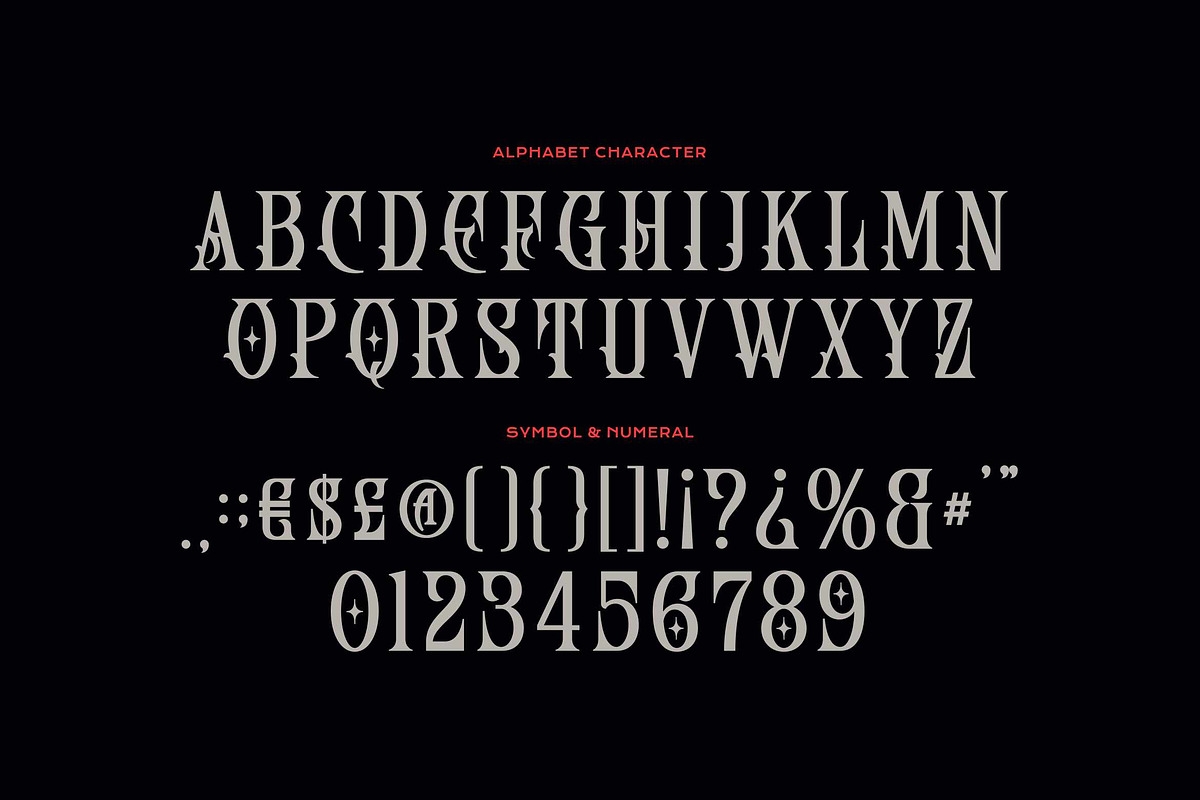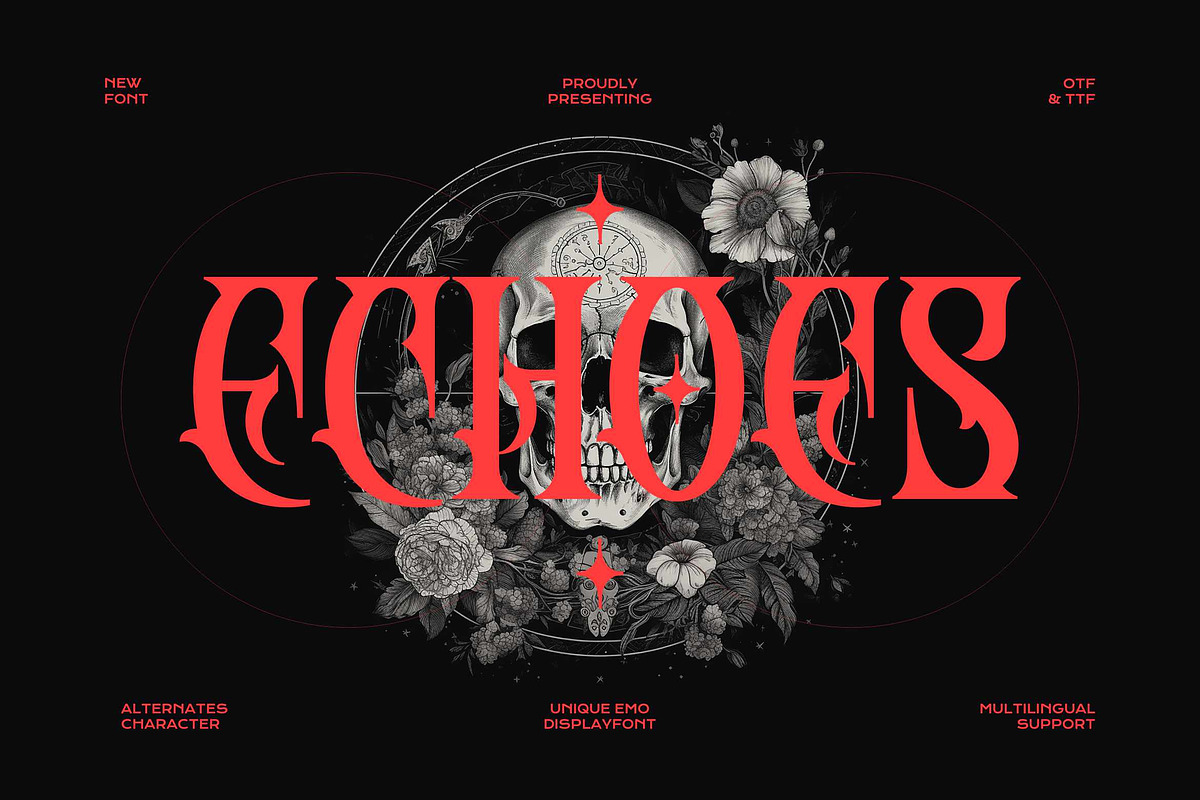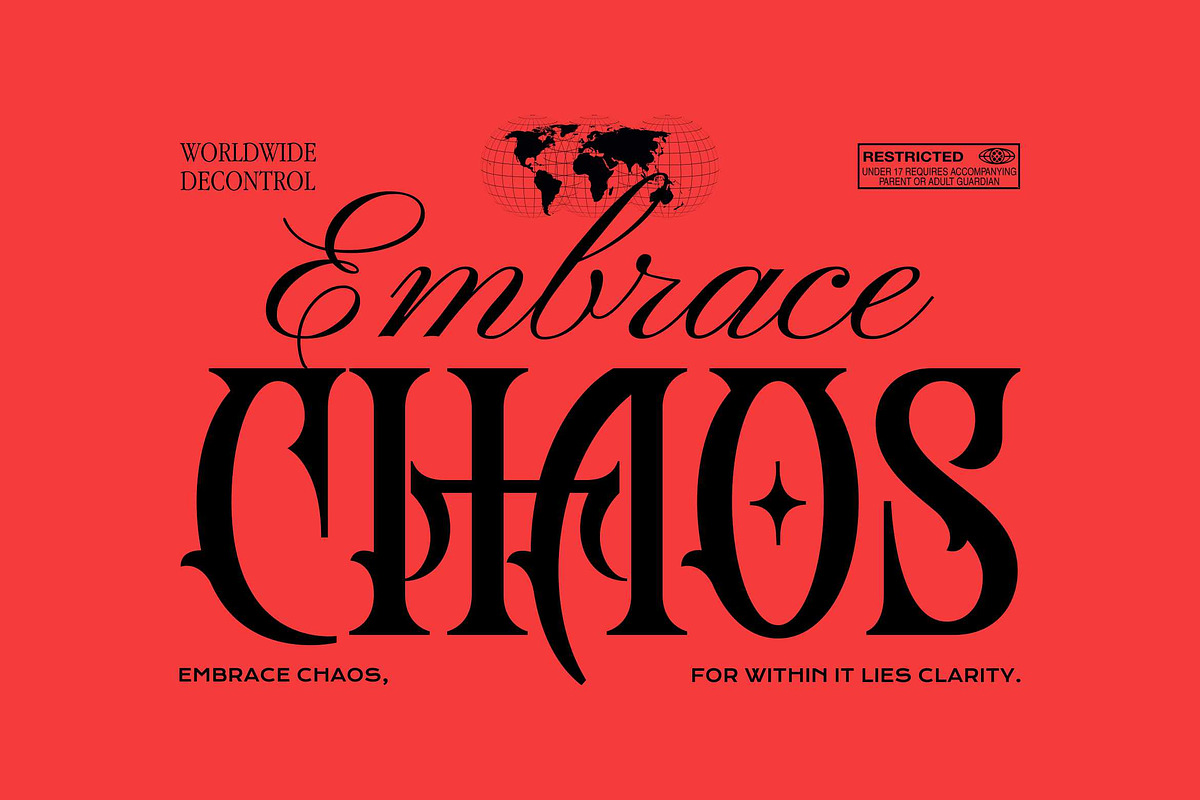
Echoes - Blackletter Style
Echoes blackletter style is a bold and menacing typeface inspired by the dark and intense aesthetic of the death metal music genre. With sharp, angular letterforms and jagged edges, this font exudes an aura of aggression and power. Each character is meticulously crafted to convey a sense of brutality and raw energy.
Suitable works in both uppercase and lowercase sizes, suitable for a wide variety of projects such as a display font for headings, logo fonts, invitations, branding, book covers, magazine layouts, card, product packaging, product mockup, mugs, posters, labels, editorials, art deco, and any type of advertising purpose.
- Uppercase and Lowecase Characters.
- Numerals and Punctuations.
- Alternates and Ligatures.
- Multilingual Support.